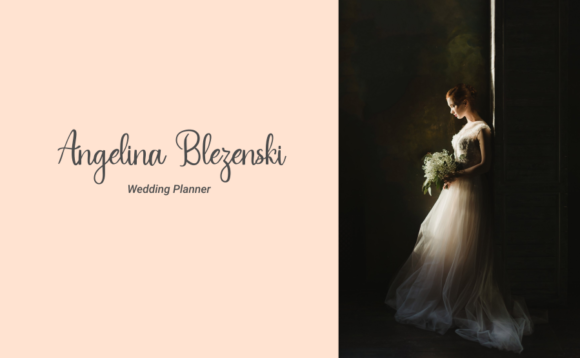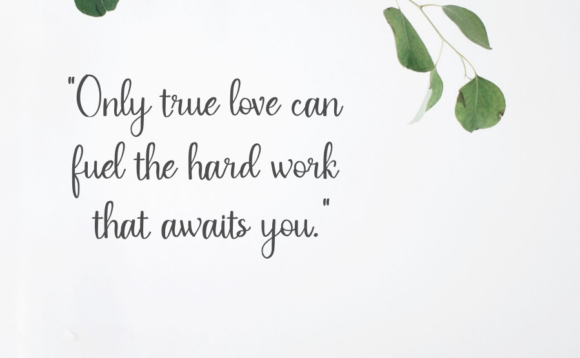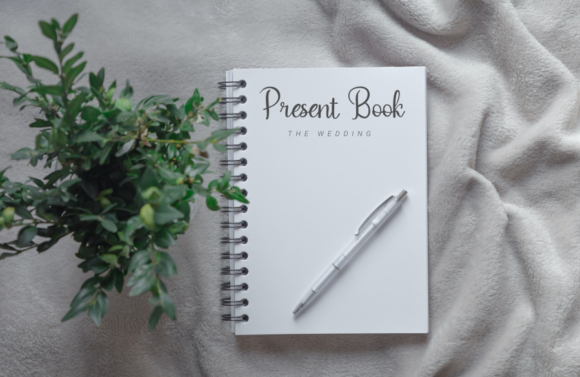
Introduction to Katalia Font Font
Fonts play a crucial role in design, and the Katalia Font font is a typeface that brings both character and versatility to any project. Whether you’re working on a branding project, a website, or a print design, the Katalia Font font offers a unique style that can elevate your work.
Katalia is an elegant script font with a contemporary atmosphere and impeccable form.
Not too thin and not too thick, balanced and varied, this font was designed to enhance the beauty of your projects .
Key Features of Katalia Font Font
Why Choose Katalia Font Font?
The Katalia Font font is more than just a typeface – it’s a design tool that helps you communicate your message with style and clarity. Its unique character set and versatile design make it suitable for a wide range of applications, from elegant invitations to bold headlines.
With its carefully crafted letterforms and balanced proportions, the Katalia Font font ensures readability and visual appeal across all mediums.
What makes Katalia Font font special?
The Katalia Font font stands out with its unique design, exceptional readability, and versatility across various design applications.